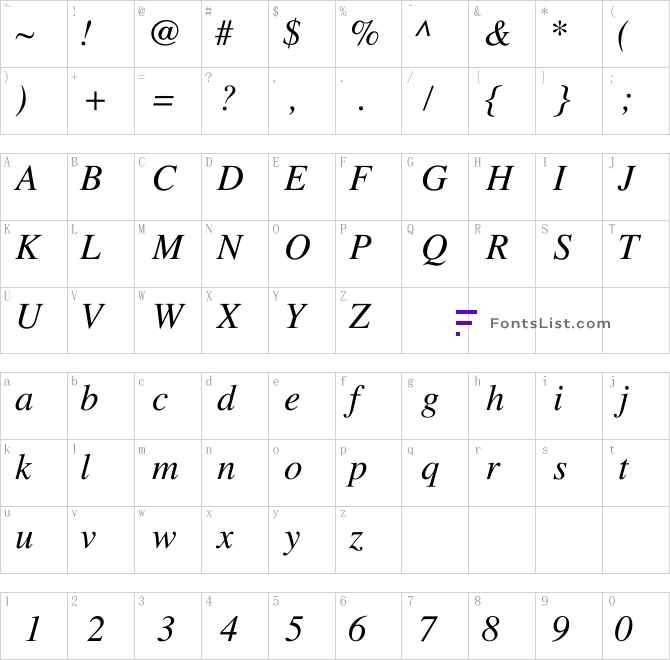
- Font Name:Alkaios
Alkaios-Italic.ttf is a very beautiful artistic font, Alkaios-Italic.ttf is widely used in the design and printing of various books and pictures,Alkaios-Italic.ttf has a strong visual impact,Alkaios-Italic.ttf is a commonly used font in newspapers, magazines and books, and is used in posters, e-commerce Poster design, store design, logo design, font design and other fields.Alkaios-Italic.